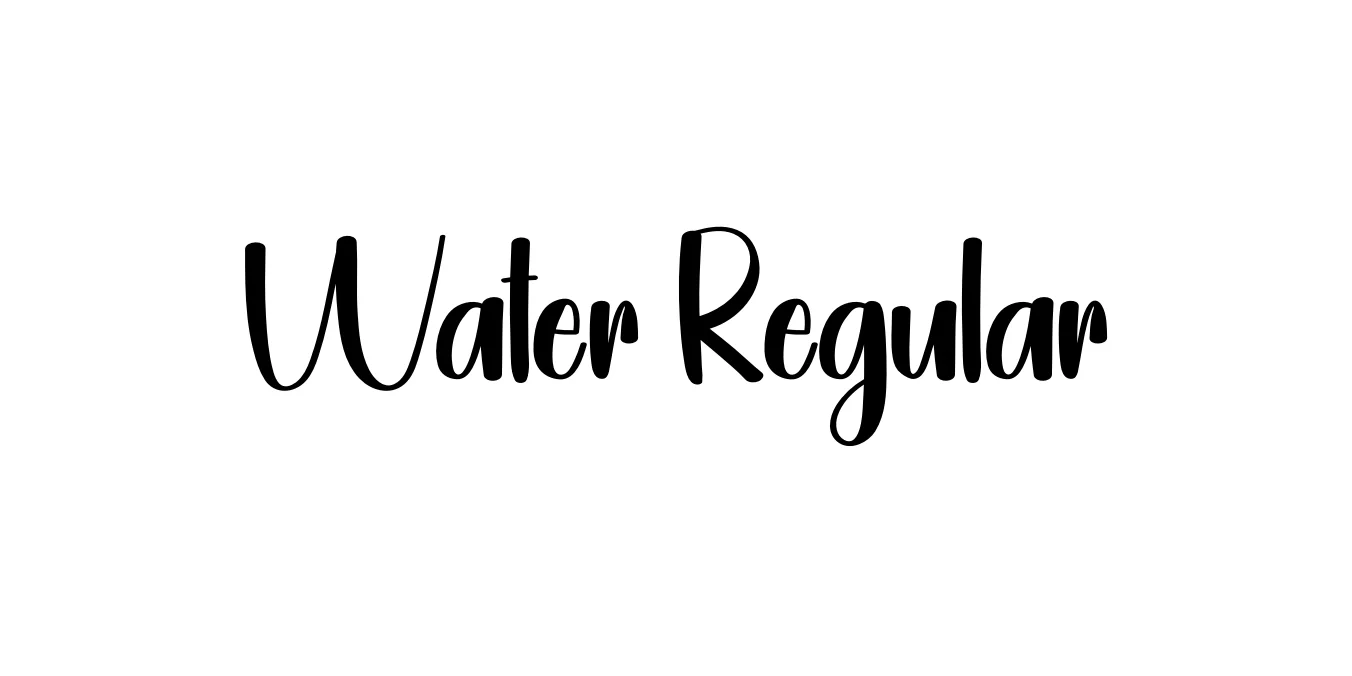
Water Regular
Designed by Misti's Fonts
| Category | Decorative / Script |
Water Regular is an evocative decorative typeface designed to mimic the fluid and organic movements of nature. Its strokes are characterized by a gentle, hand-drawn aesthetic that provides a sense of calm and accessibility. Developed to bridge the gap between structured typography and free-form calligraphy, it excels in creating a personal connection with the viewer through its soft terminals and rhythmic spacing.
The history of Water Regular is rooted in the rise of the handmade design movement, where designers sought digital tools that retained a human touch. Since its inception, this font has been widely adopted for boutique branding and artisanal product packaging. Its unique personality allows it to function effectively in high-contrast environments, making it a staple for creators who prioritize storytelling and visual harmony in their typographic choices.
Water Regular Best Uses
Perfect for artisanal, eco-friendly, or wellness-themed brand identities.
Excellent for creating engaging, friendly quote graphics and story overlays.
Ideally suited for greeting cards, invitations, and book covers requiring a soft touch.